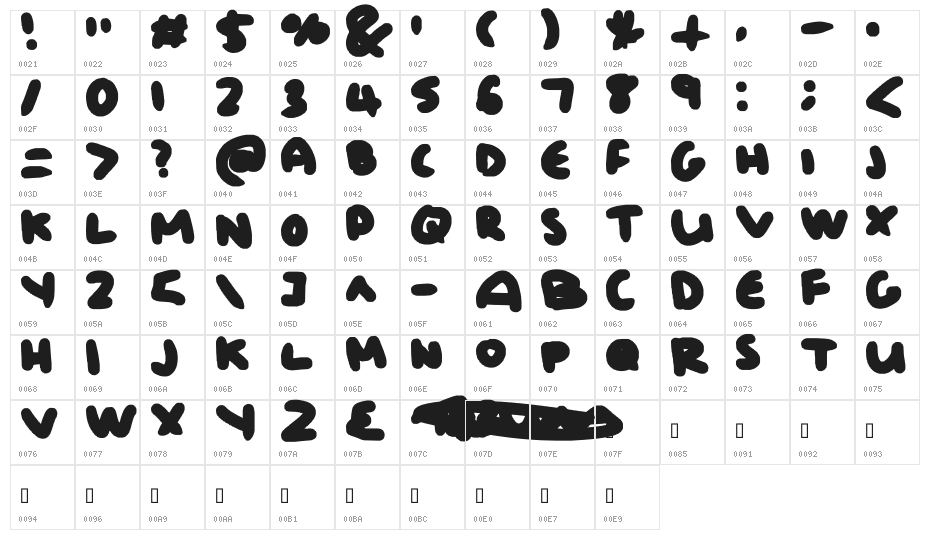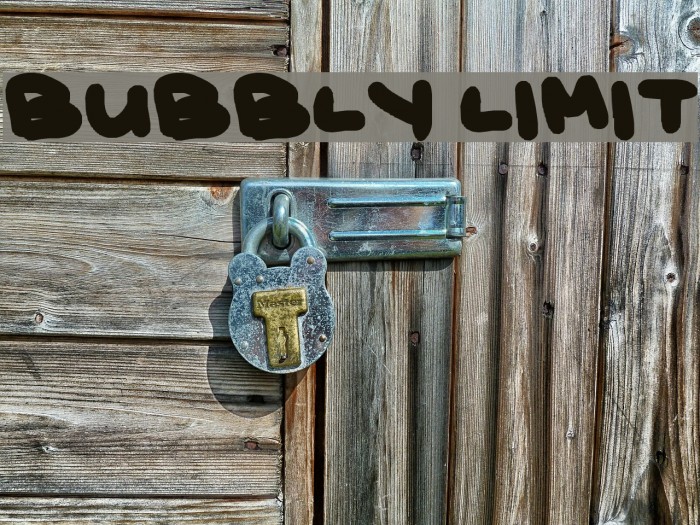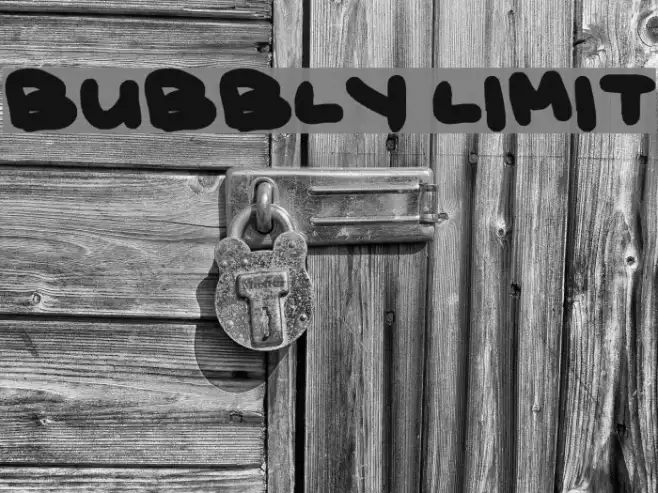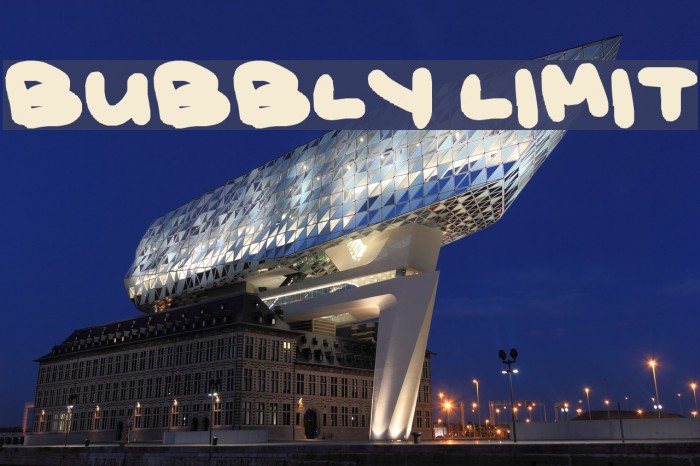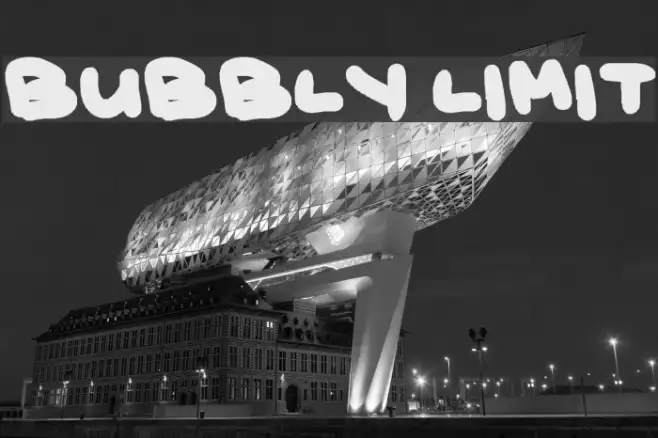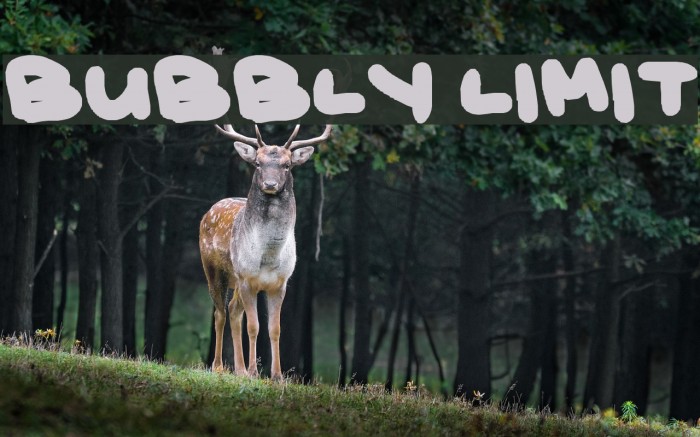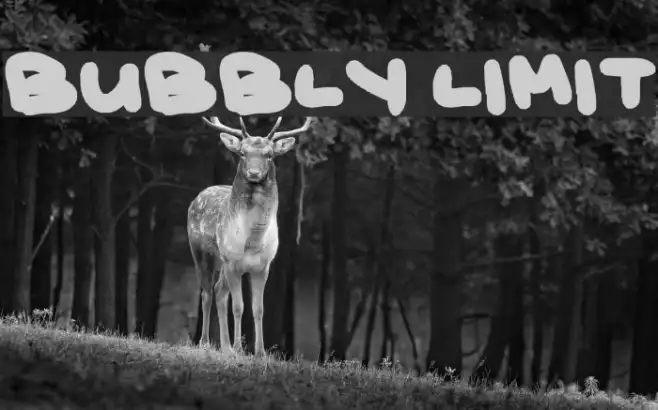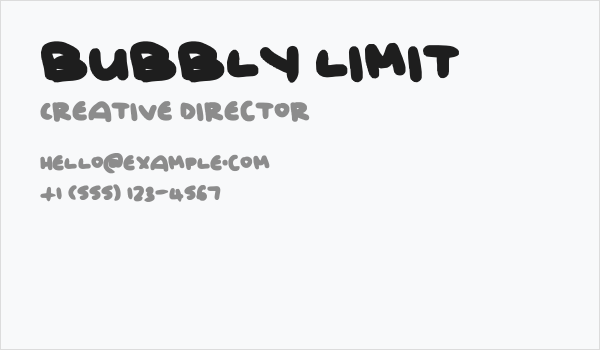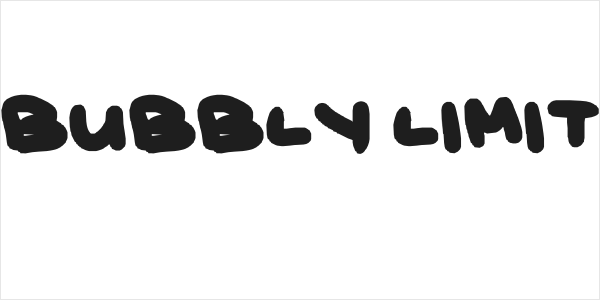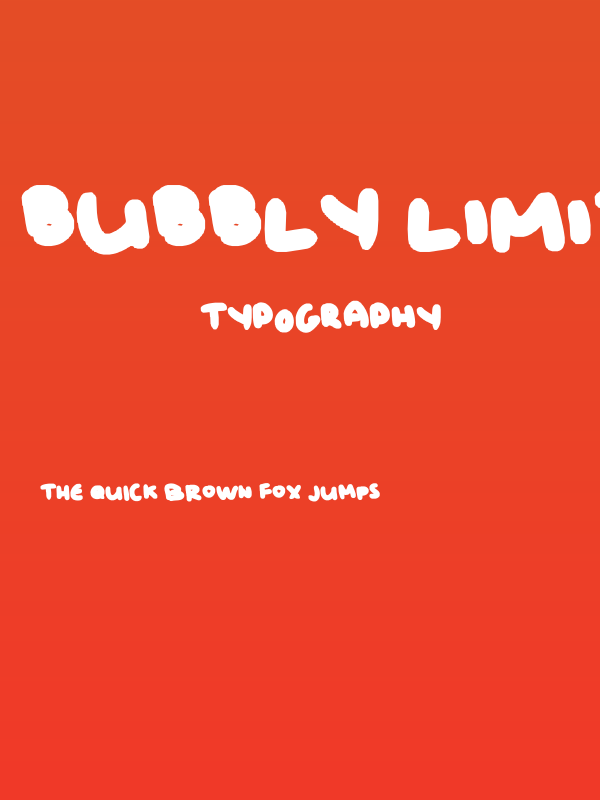
bubbly limit Font
bubbly limit Description
This playful and bold font features a bubbly, rounded style that exudes a sense of fun and whimsy. Each character is crafted with thick strokes and smooth curves, creating a cohesive and friendly appearance. The uppercase and lowercase letters maintain a consistent weight, while the numbers and special characters complement the overall design. The font's exaggerated roundness and uniformity make it ideal for projects that require a touch of lightheartedness and approachability.
| Overall Style | Playful, Fun |
| Proposed Projects | Perfect for children's books, playful branding, party invitations, and casual social media graphics. |